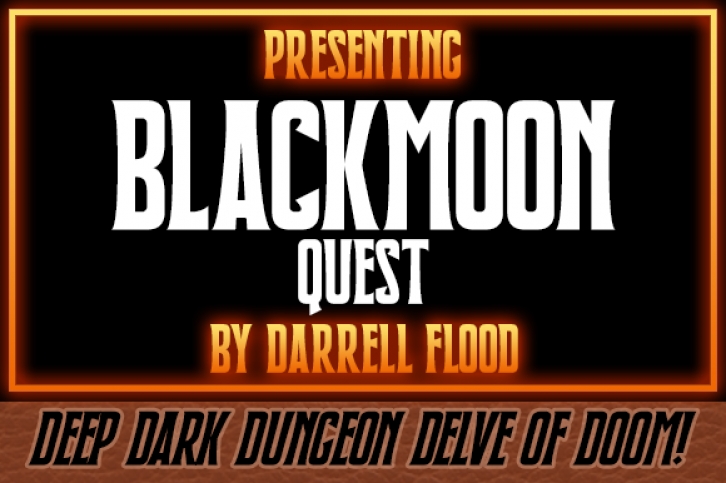
Blackmoon Quest is a bold display font. Masterfully designed to become a true favorite, this font has the potential to bring each of your creative ideas to the highest level!